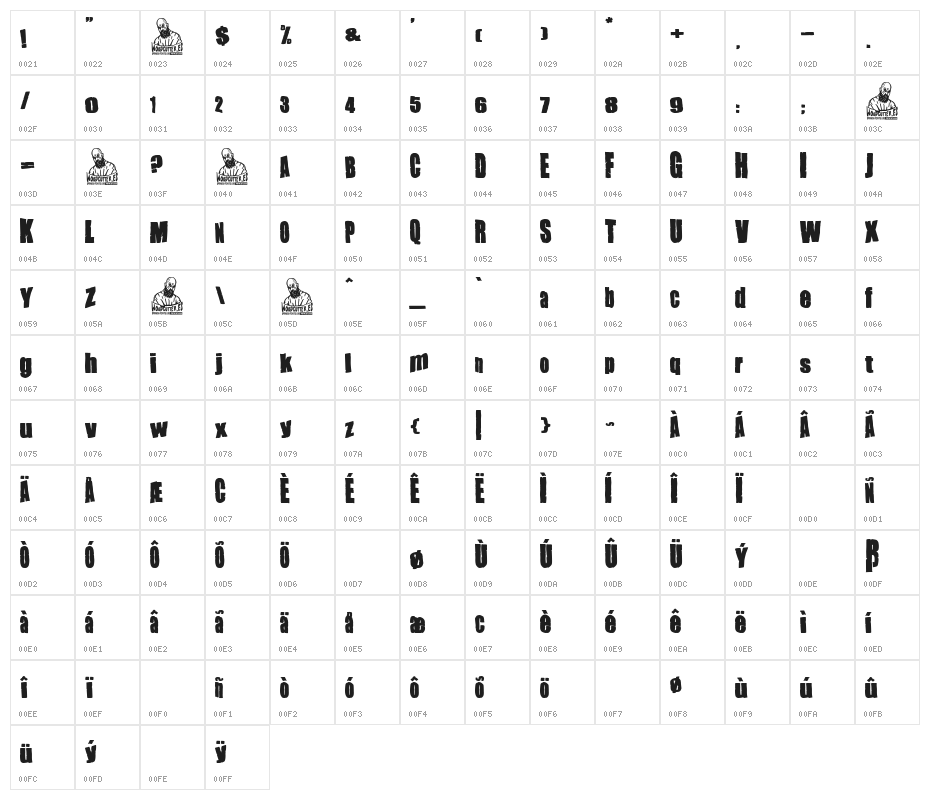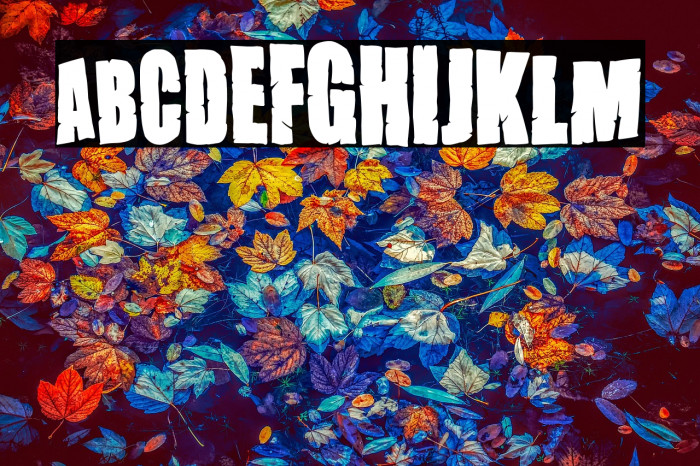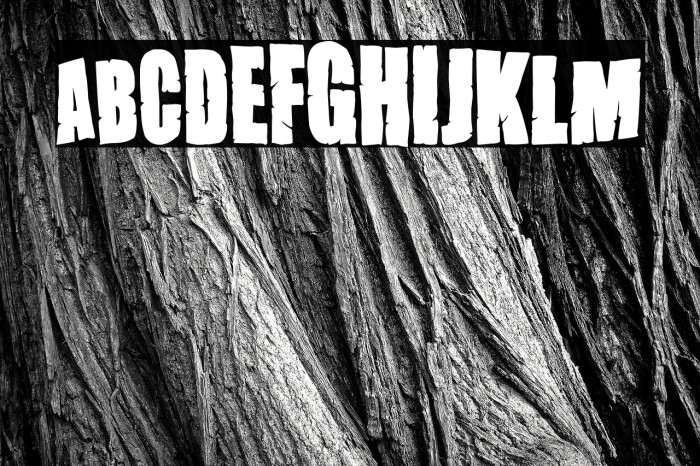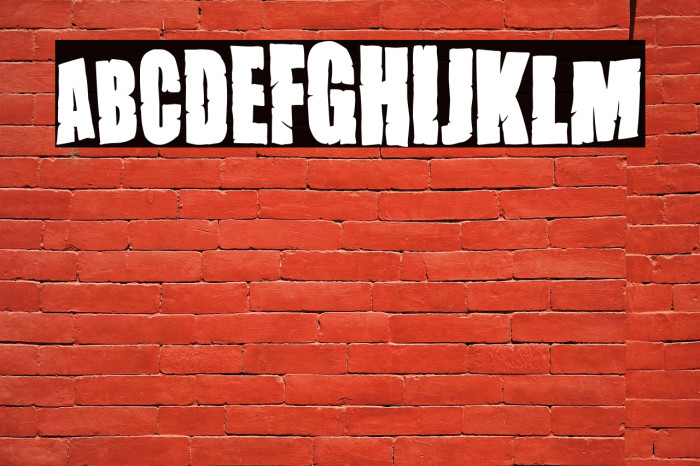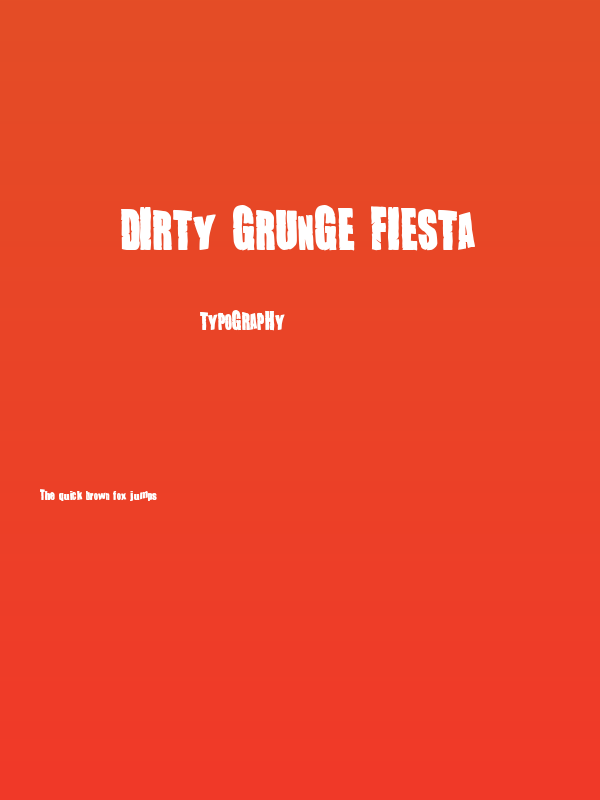
Dirty Grunge Fiesta Font
Dirty Grunge Fiesta Description
This font exudes a rugged, distressed aesthetic, characterized by its bold and uneven strokes that give it a grunge-like appearance. The letters appear as if they have been roughly stamped or printed, with irregular edges and a slightly warped form, adding to its raw and edgy feel. The uppercase and lowercase letters maintain a consistent style, with numbers and special characters following suit, all contributing to a cohesive yet chaotic look. The font's heavy weight and thick strokes make it stand out, while the irregularities in each character add a unique, handcrafted touch.
| Overall Style | Grunge, Edgy, Distressed |
| Use Case | Headlines, Posters, Branding |
| Proposed Projects | Ideal for music album covers, event posters, streetwear branding, or any project seeking a rebellious, edgy vibe. |